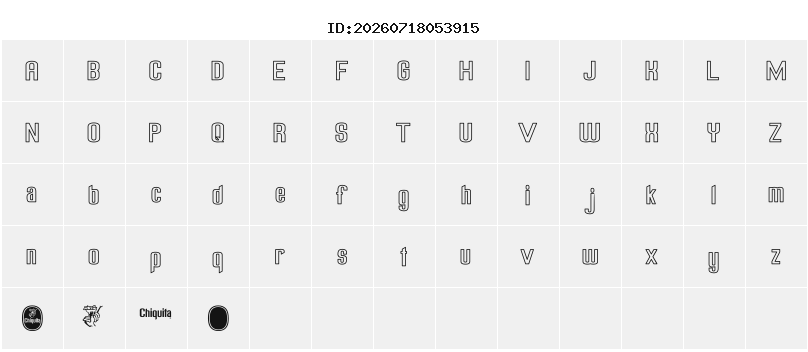
Chiquita Outlined.ttf is a modern, elegant sans-serif font designed for ultimate readability and visual harmony. Perfect for branding, headlines, web design, and print materials.